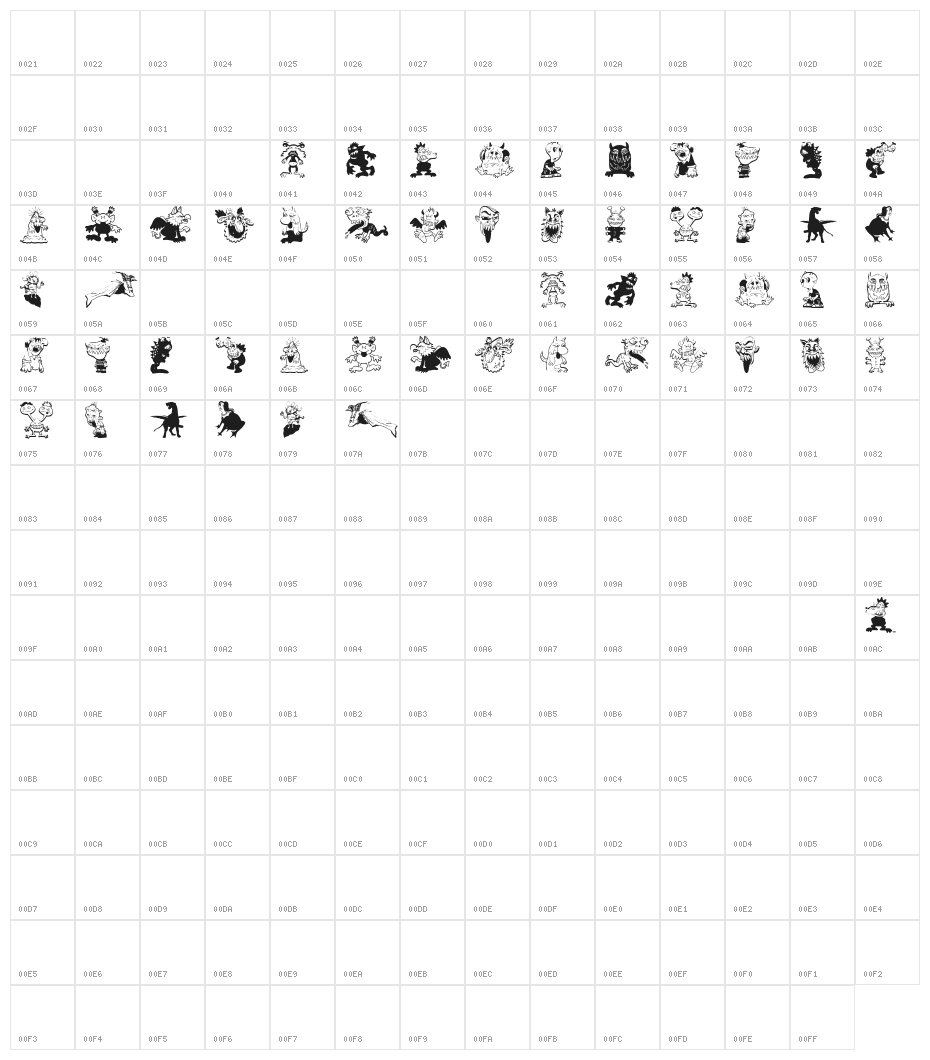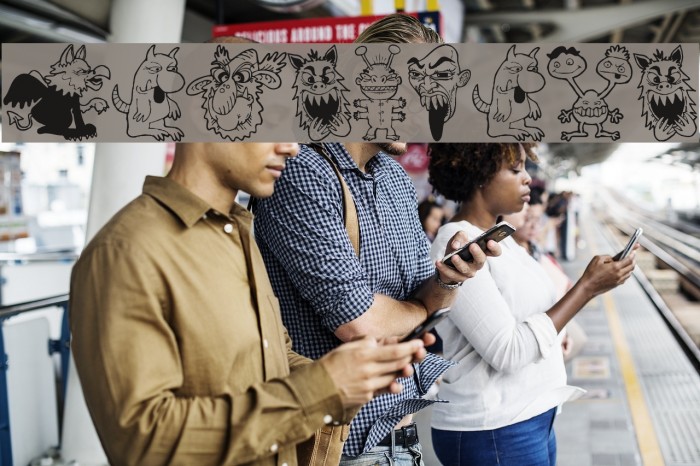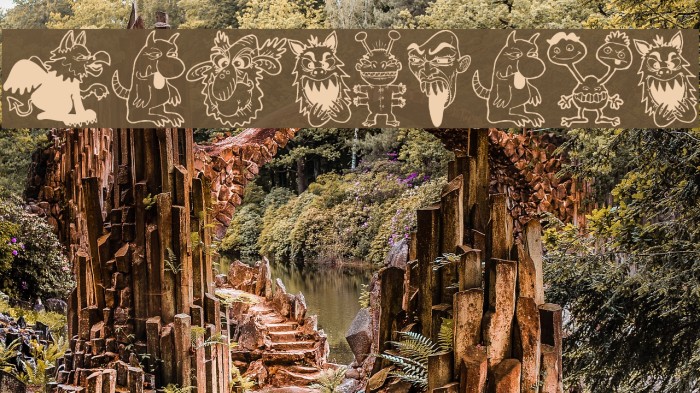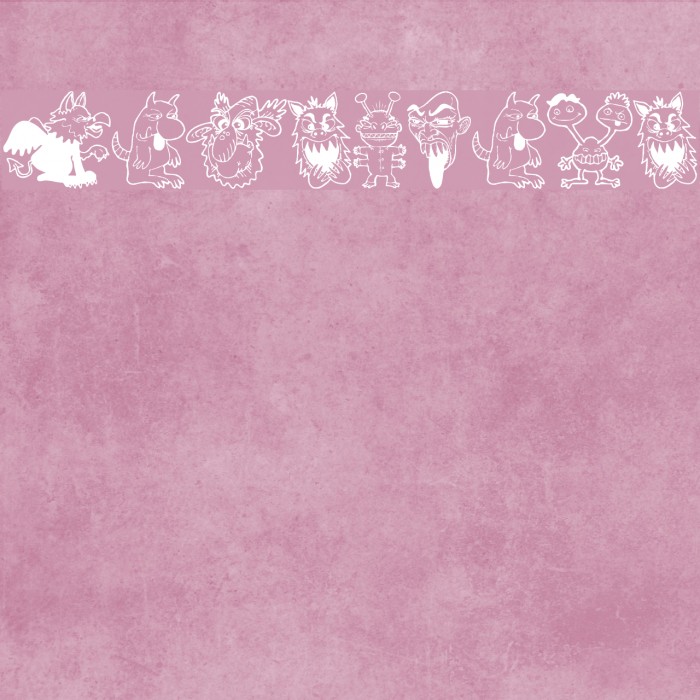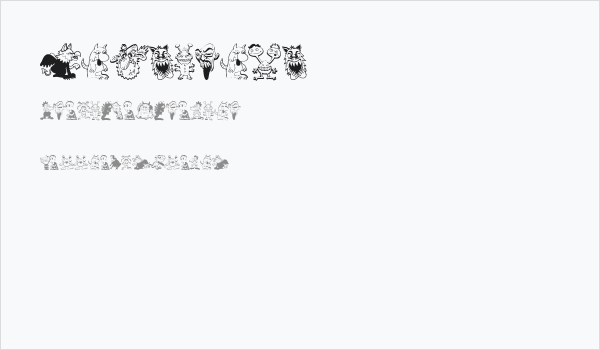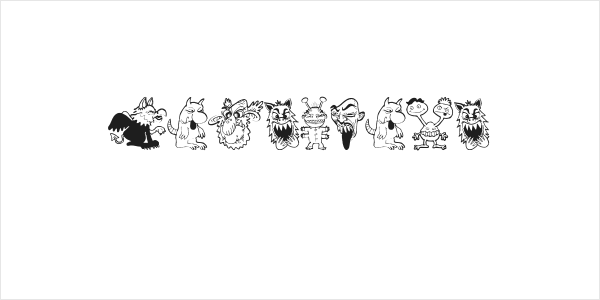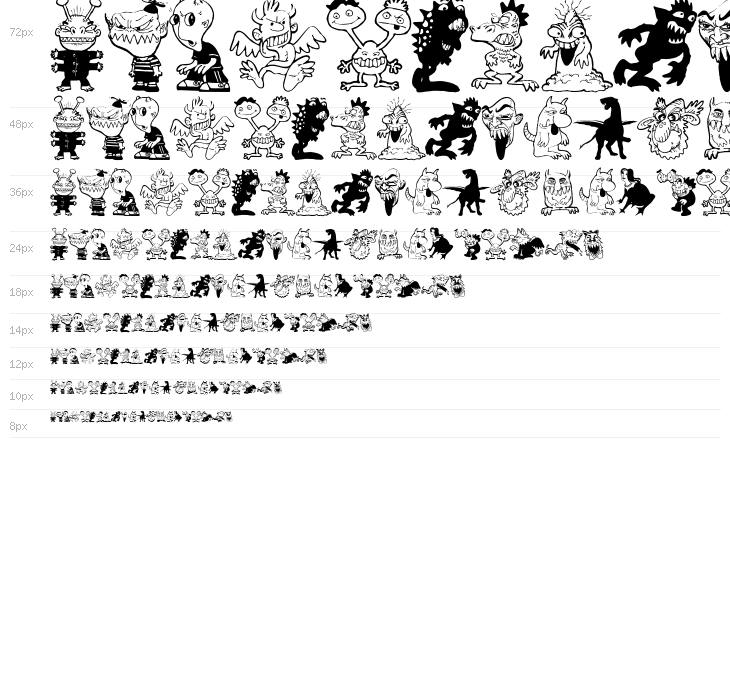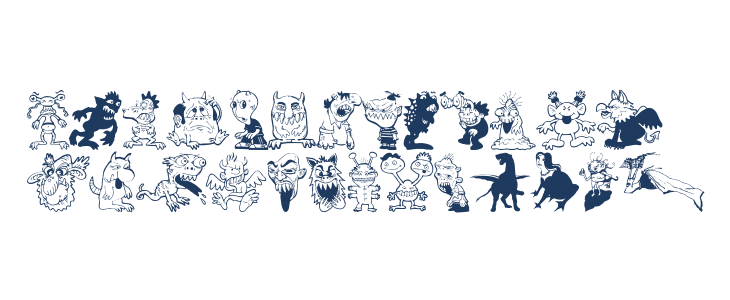
Monstrous Font
Monstrous Description
This font is a whimsical and playful collection of monstrous characters, each uniquely designed to represent a letter or symbol. The characters are highly detailed, featuring exaggerated features and expressions that add a sense of humor and creativity. The style is reminiscent of classic cartoon monsters, with a mix of both friendly and slightly menacing appearances. Each character is distinct, ensuring that the font is not only functional but also visually engaging. The overall design is bold and eye-catching, making it suitable for projects that require a fun and imaginative touch.
| Proposed Projects | Ideal for children's books, Halloween-themed events, creative posters, and playful branding. |